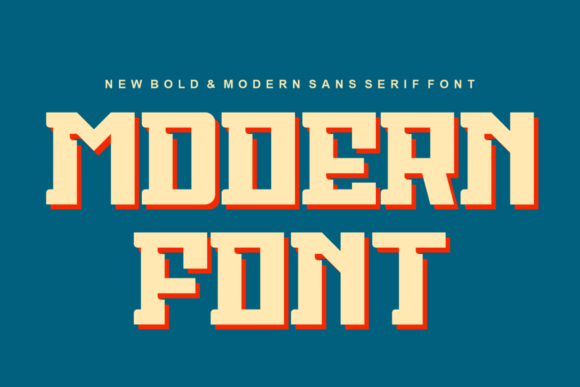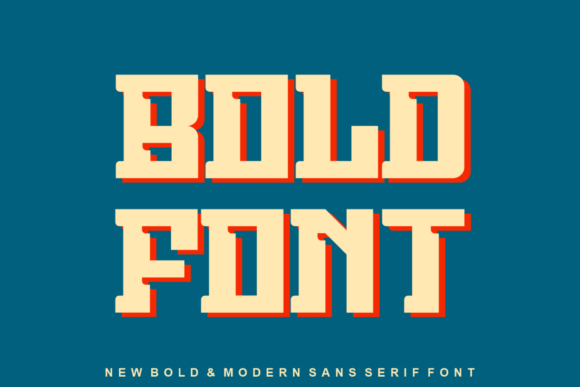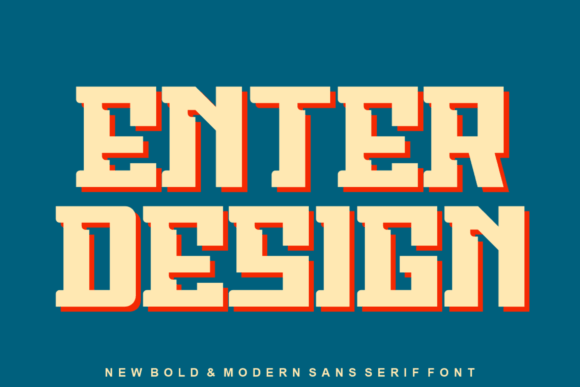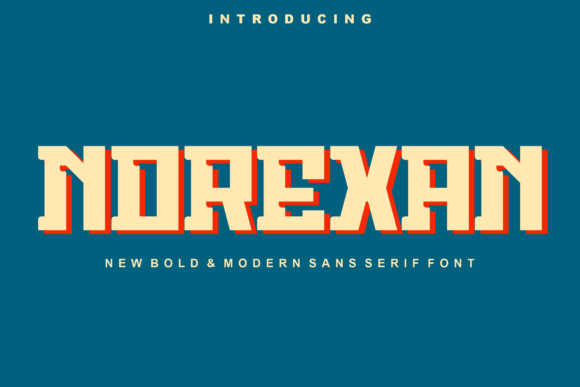
Introduction to Norexan Font
Norexan is a bold and authentic slab serif font.
The font is suitable for any branding project like logo, t-shirt printing, e-sport, and many more It will look outstanding in a wide range of contexts.